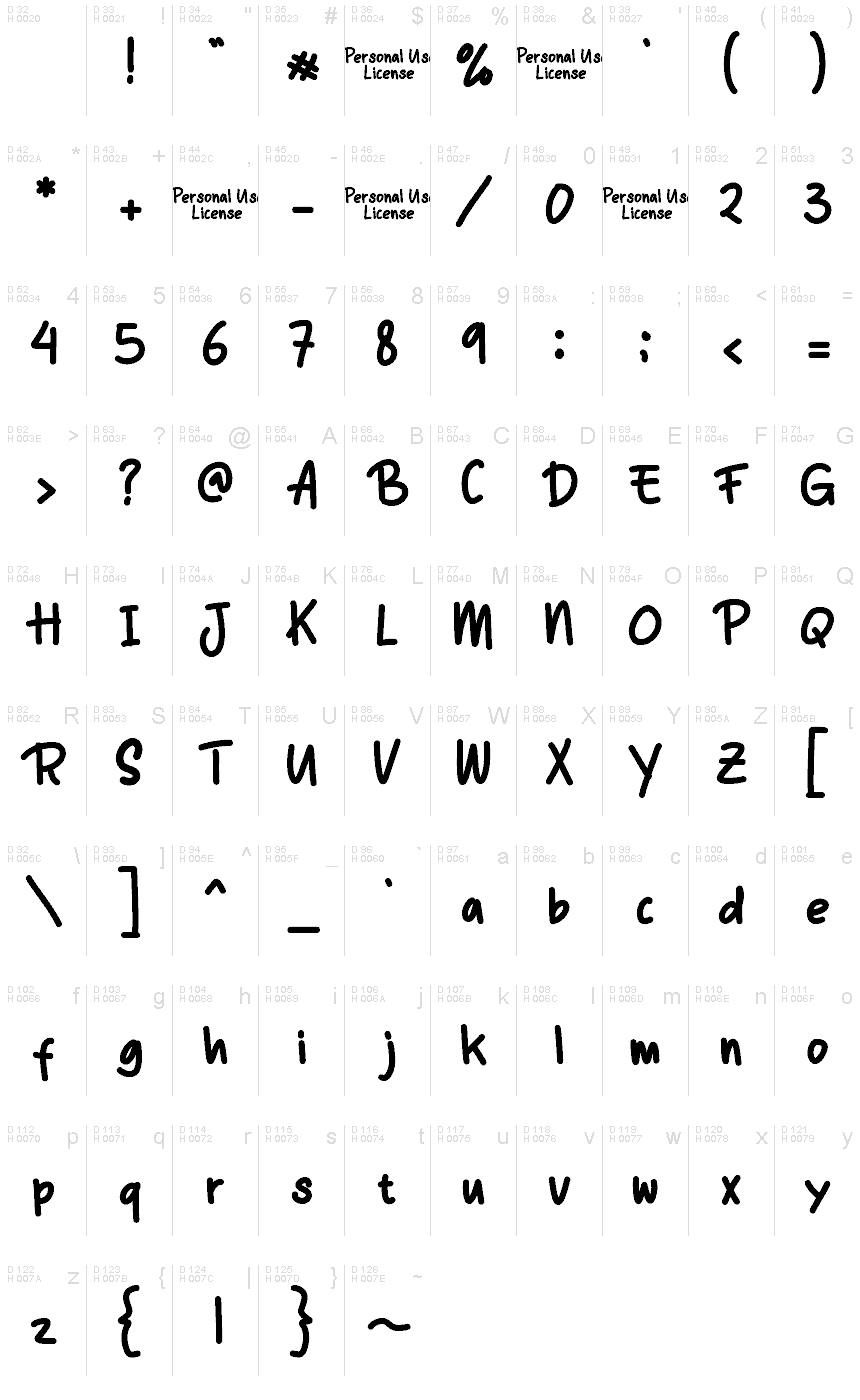
Balltimore Sans Demo
Balltimore Sans font by Java Pep is a free handwritten font with a friendly and approachable appearance that stands out. Its casual aesthetic highlights an authentic, human start-to-finish work process that’s focused both on beauty and the artist's touch. The sans serif characters of this modern display typeface feature custom styling that has uneven tones in some of the strokes.